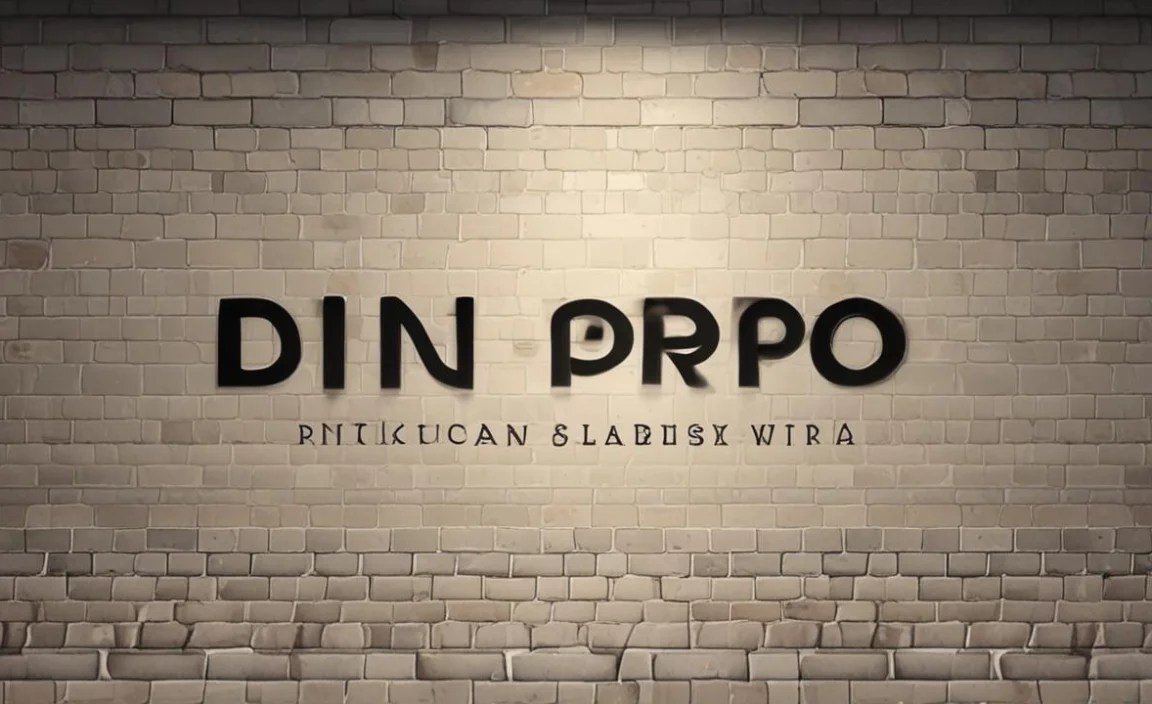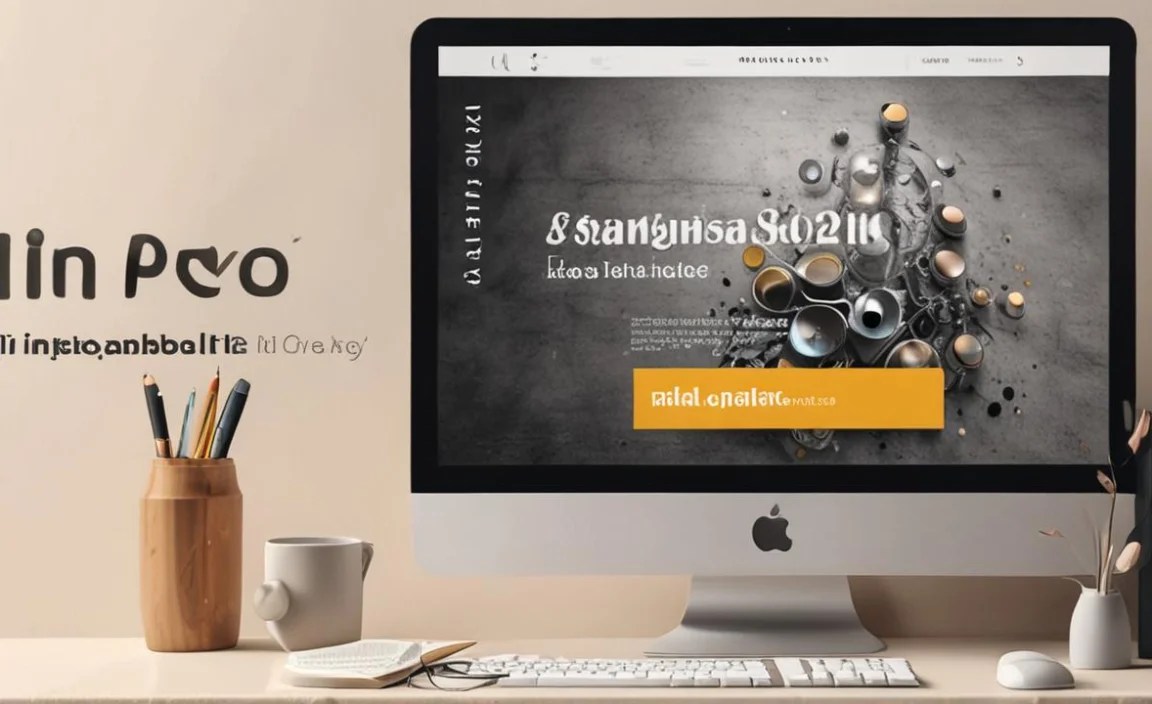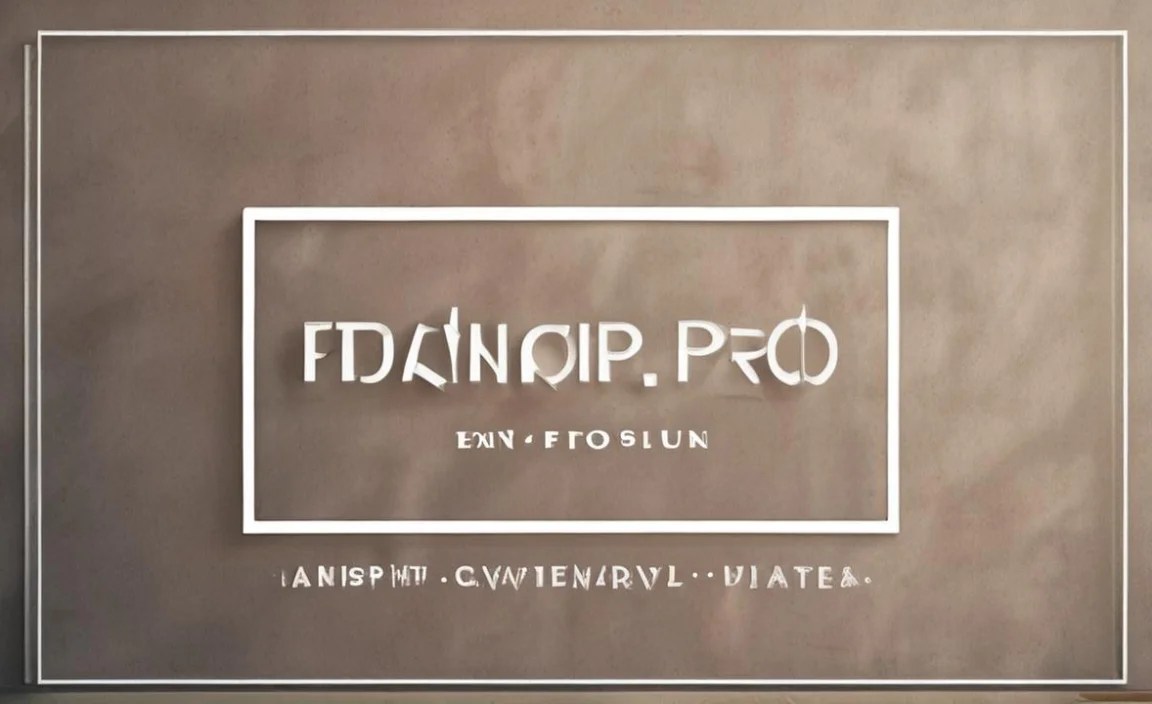
DIN Pro font is a modern sans-serif typeface with roots in industrial design. Designed by Albert-Jan Pool in 1995, it takes inspiration from the German DIN 1451 standard, originally developed for road signage and technical applications. Its clean, precise lines make it a popular choice for branding, editorial work, and digital interfaces.
DIN Pro Font Information
| Name | DIN Pro |
| Designer | Albert-Jan Pool |
| Type | Sans-serif |
Where to Use DIN Pro Font
DIN Pro offers a modern, professional look, making it ideal for various design applications. You will find this font in:
- Branding and identity design: Establishes a clean, contemporary image.
- Editorial layouts: Ensures readability and visual appeal in print and digital formats.
- Website design: Provides a sleek and modern aesthetic for online content.
- Advertising campaigns: Creates bold, attention-grabbing headlines.
- Product packaging: Delivers a crisp and professional presentation.
- User interfaces: Enhances clarity and usability in digital environments.
- Signage and wayfinding: Offers legibility from a distance, true to its industrial roots.
2. Why Do Designers Choose DIN Pro?
Designers choose DIN Pro for its precision, clarity, and versatile application across various media.
3. What Are Future Trends For DIN Pro Font?
Expect increased usage in digital interfaces and corporate branding, where its clean and professional look can shine.
4. When Did DIN Pro Get Released?
Albert-Jan Pool released DIN Pro in 1995, building on the legacy of the original DIN 1451 standard.
5. What Free Font Resembles DIN Pro?
For a free alternative, “Roboto” or “Open Sans” offers a similar modern and technical aesthetic.
6. How Many Styles Does the DIN Pro Family Include?
The DIN Pro font family includes 20 styles: Light, Regular, Medium, Bold, Black, and their italic counterparts.
7. What Versions Of DIN Pro Are Available?
DIN Pro offers versions from Light to Black, each with an italic option, giving designers a range of choices.